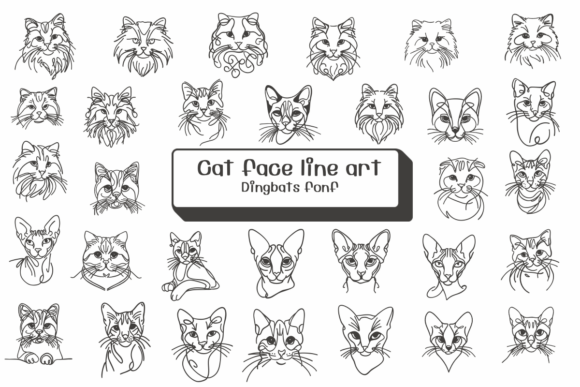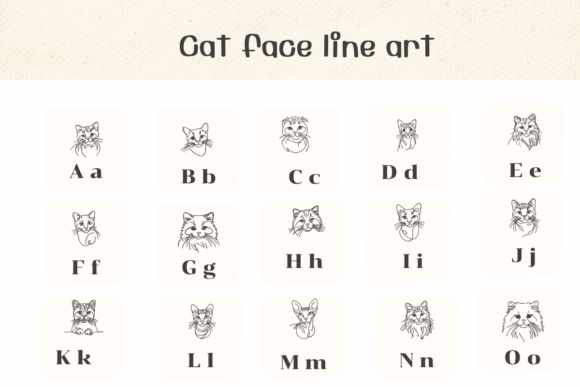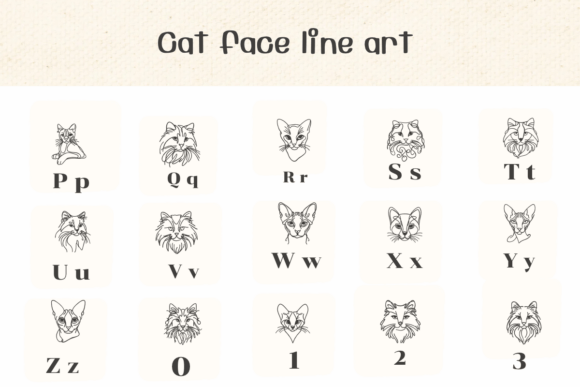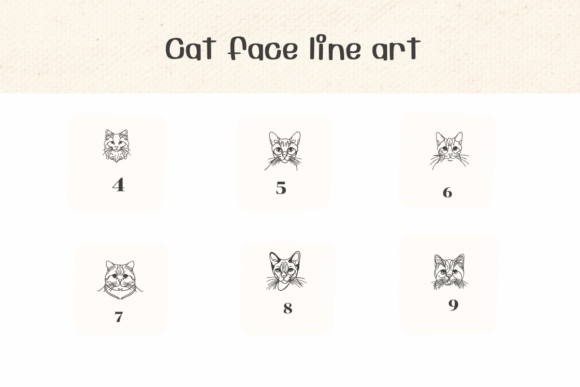
Cat Face Line Art Font
About the Cat Face Line Art Font
Add a touch of class to your work with the Cat Face Line Art Font, a truly exceptional typeface. Cat Face Line Art is a charming dingbats font filled with elegant, continuous-line illustrations of cat faces. Ideal for pet-themed branding, printables, crafts, and digital designs, this font offers a stylish and artistic way to add feline flair to any project. Just type a letter, and a unique cat face appears!
Cat Face Line Art Font Usage Examples
Cat Face Line Art Font Example